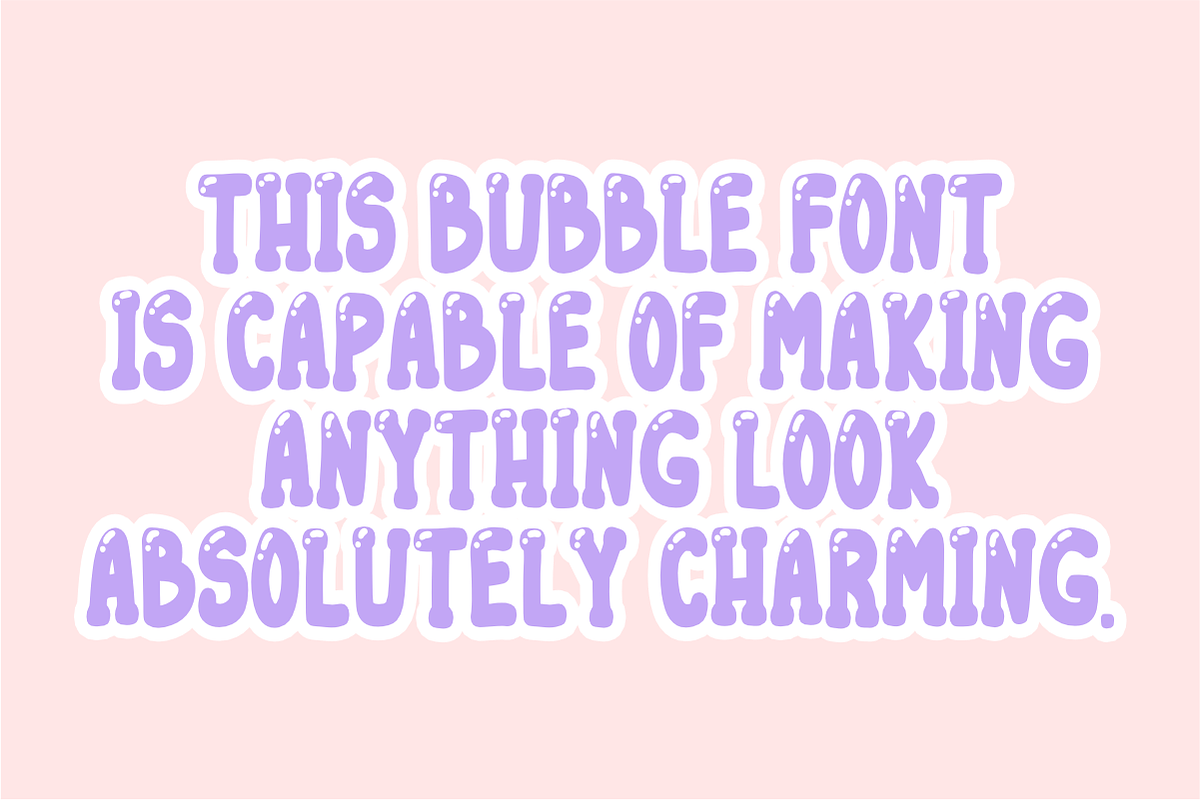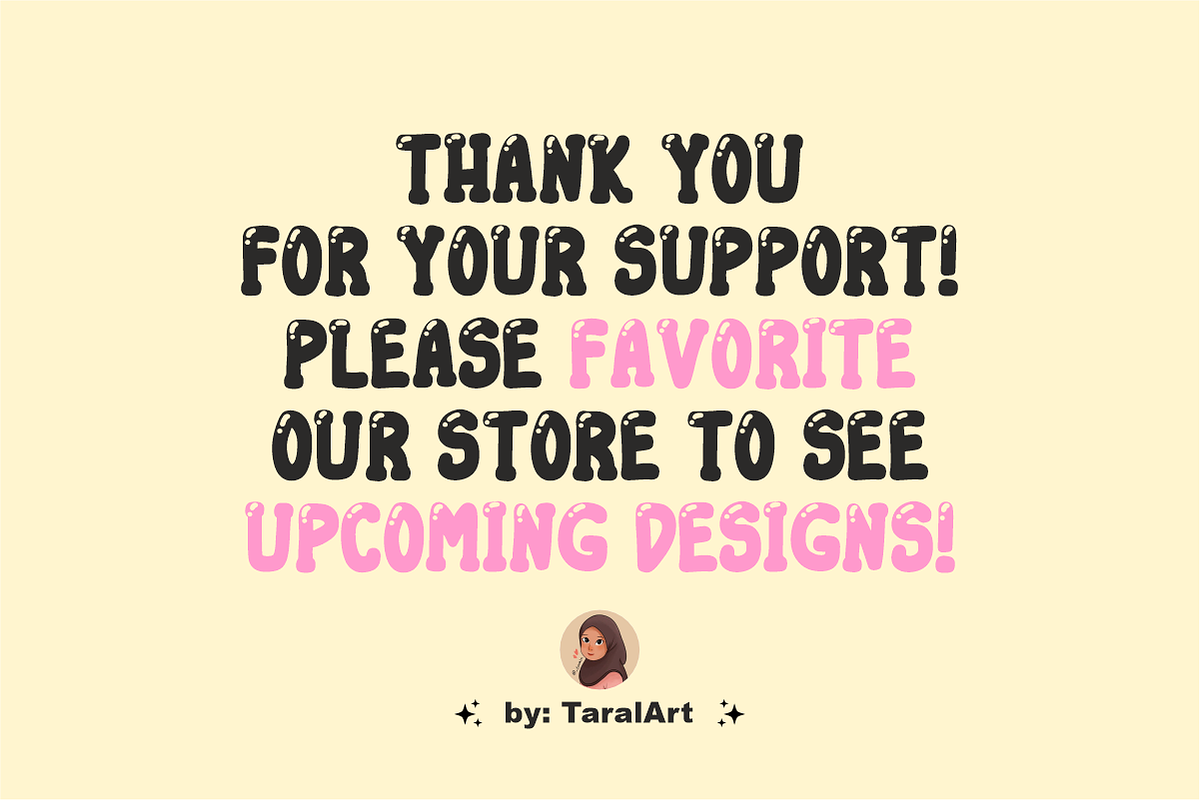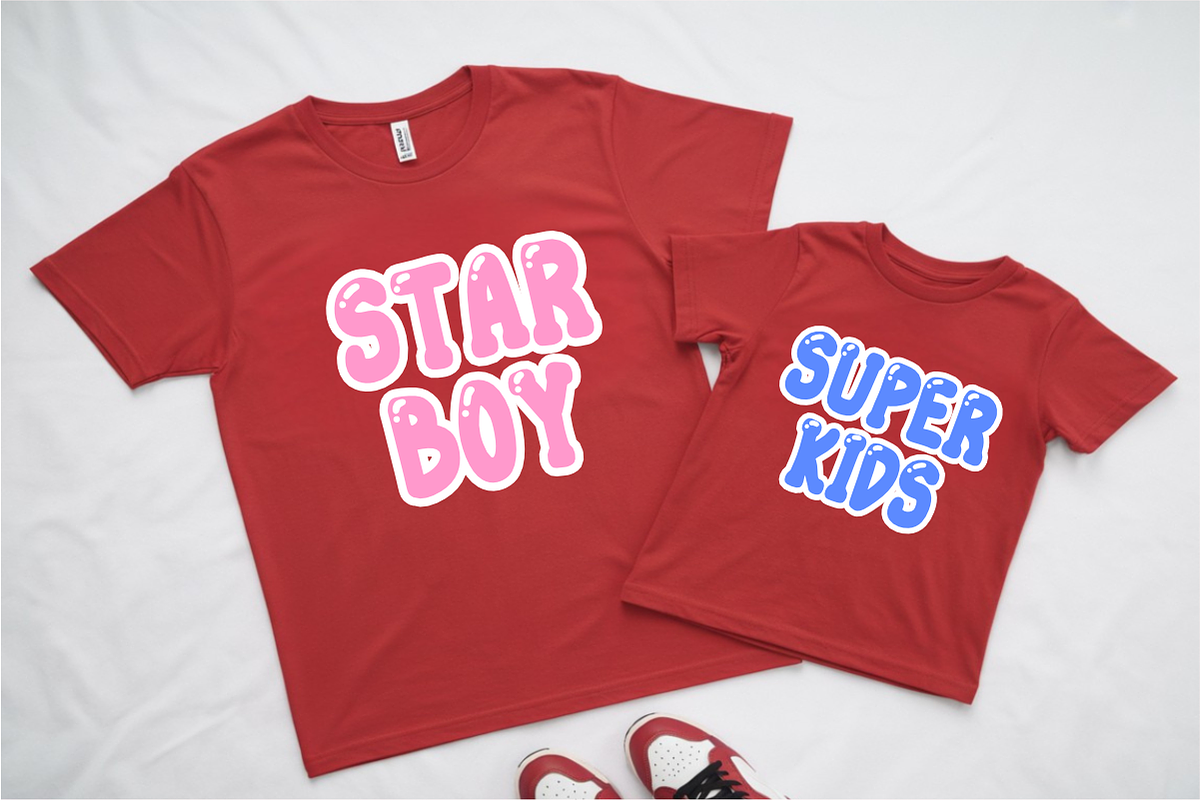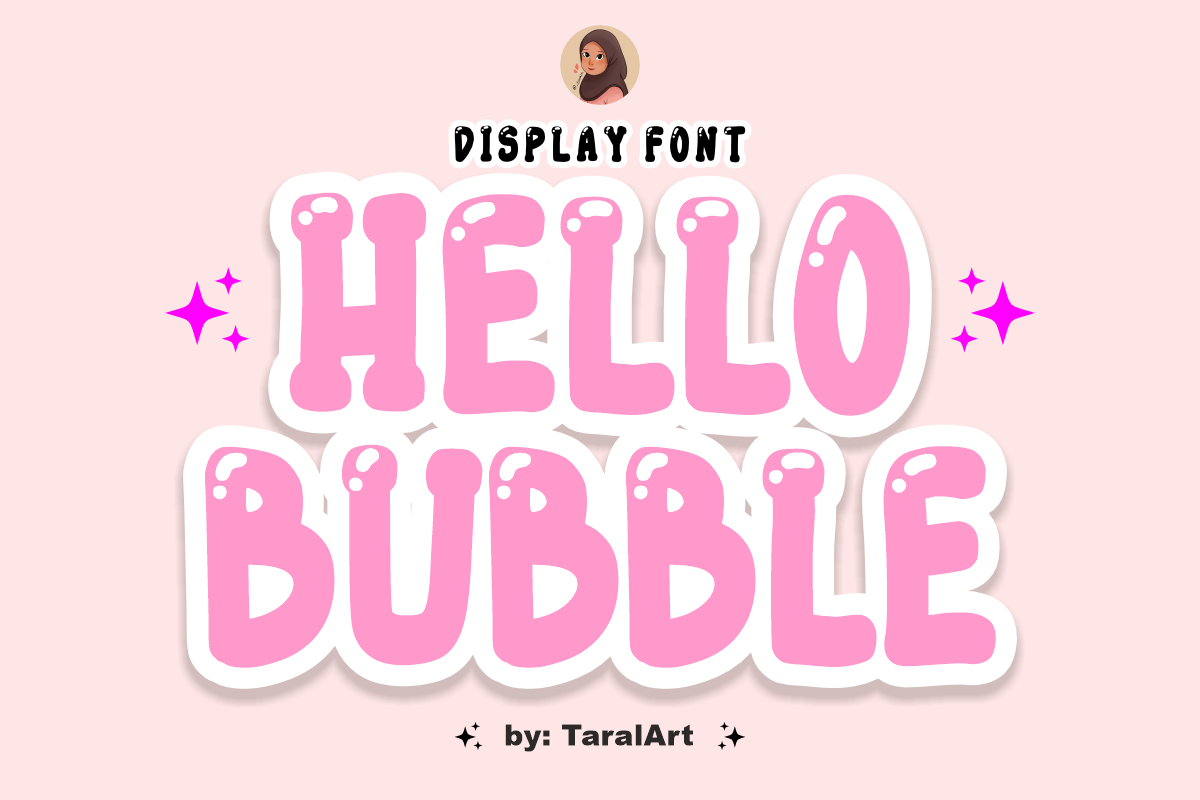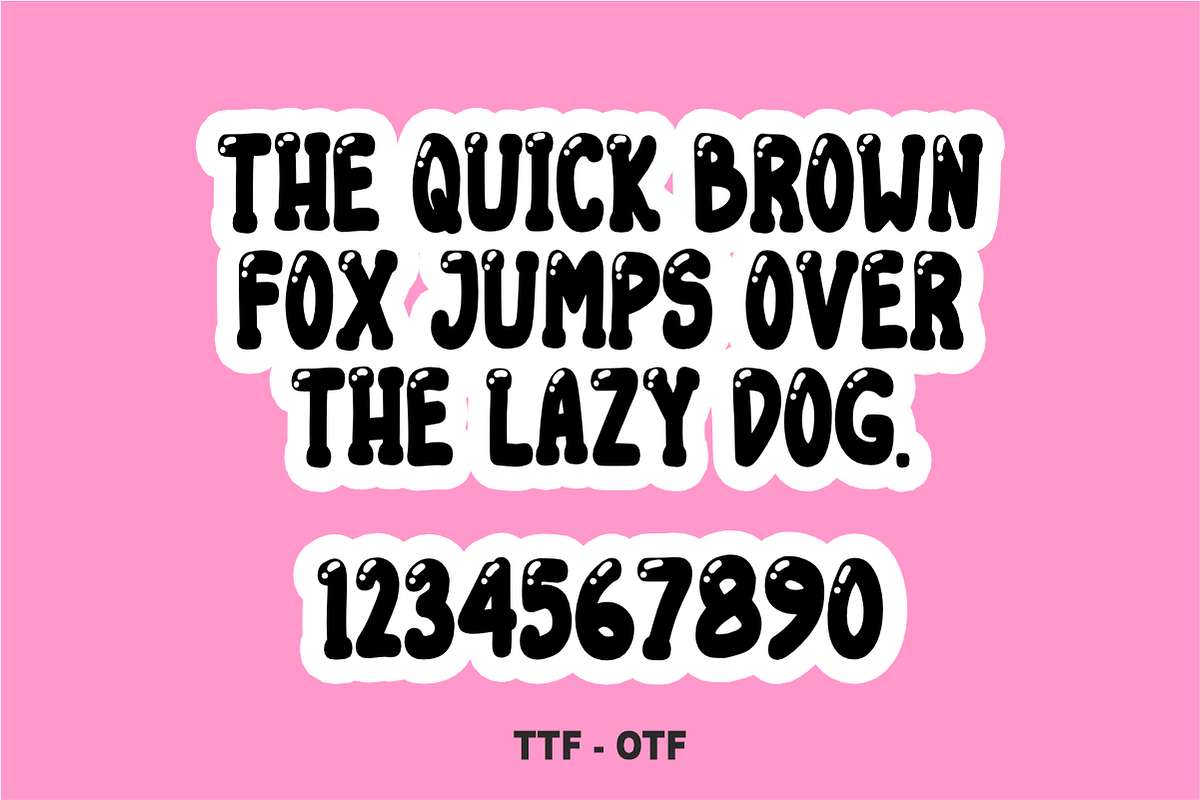
Hello Bubble - Cute Bubble Font
Hello Bubble is a cheerful, ultra-puffy display font featuring soft, rounded letterforms and playful glossy shine highlight details. Perfect for creating eye-catching stickers, whimsical branding, and kids' merchandise, this bold cartoon font adds a sweet, high-energy pop to any headline. Every character is cleanly vectorized to guarantee smooth, effortless cutting on Cricut and Silhouette machines.
Ideal For:
Custom die-cut stickers, enamel pins, and planner decals
Kids' apparel, baby onesies, and playful t-shirt prints
Classroom decorations, posters, and teacher resources
Birthday party invitations, cake toppers, and banners
Playful cartoon branding, toy packaging, and logos
Cricut, Silhouette, and DIY vinyl craft projects